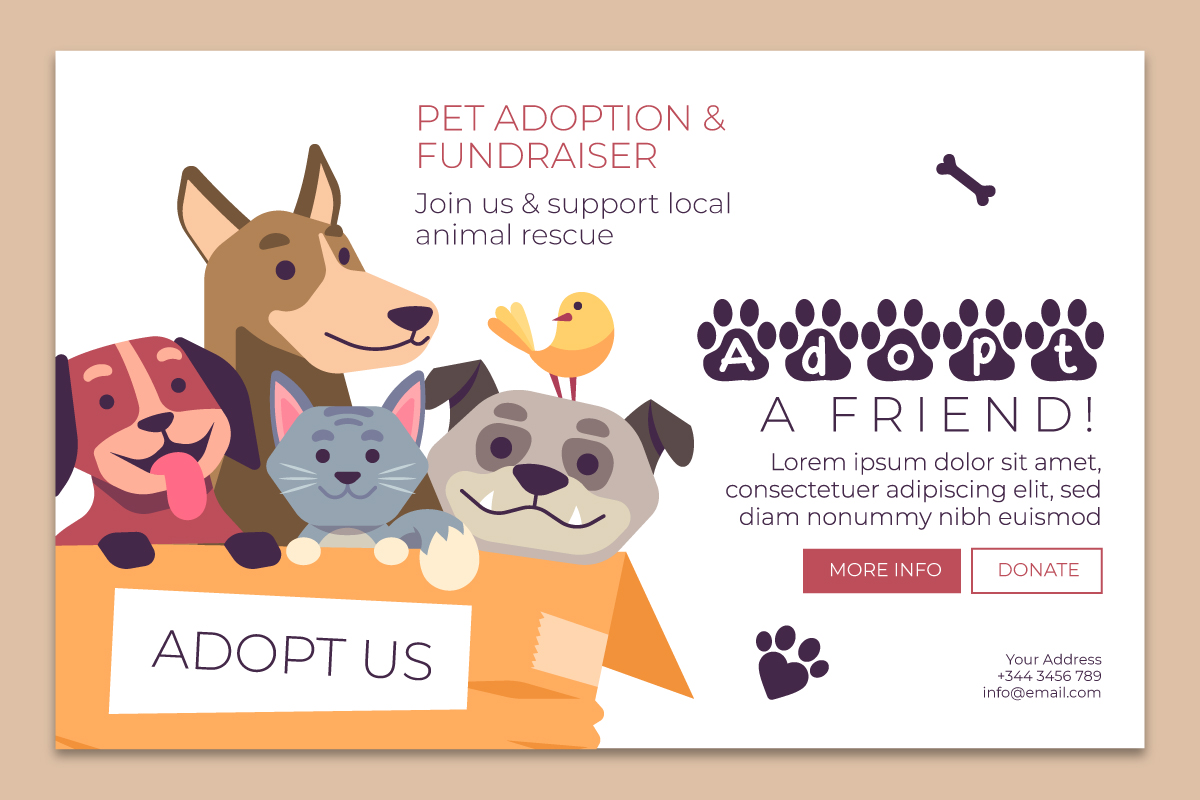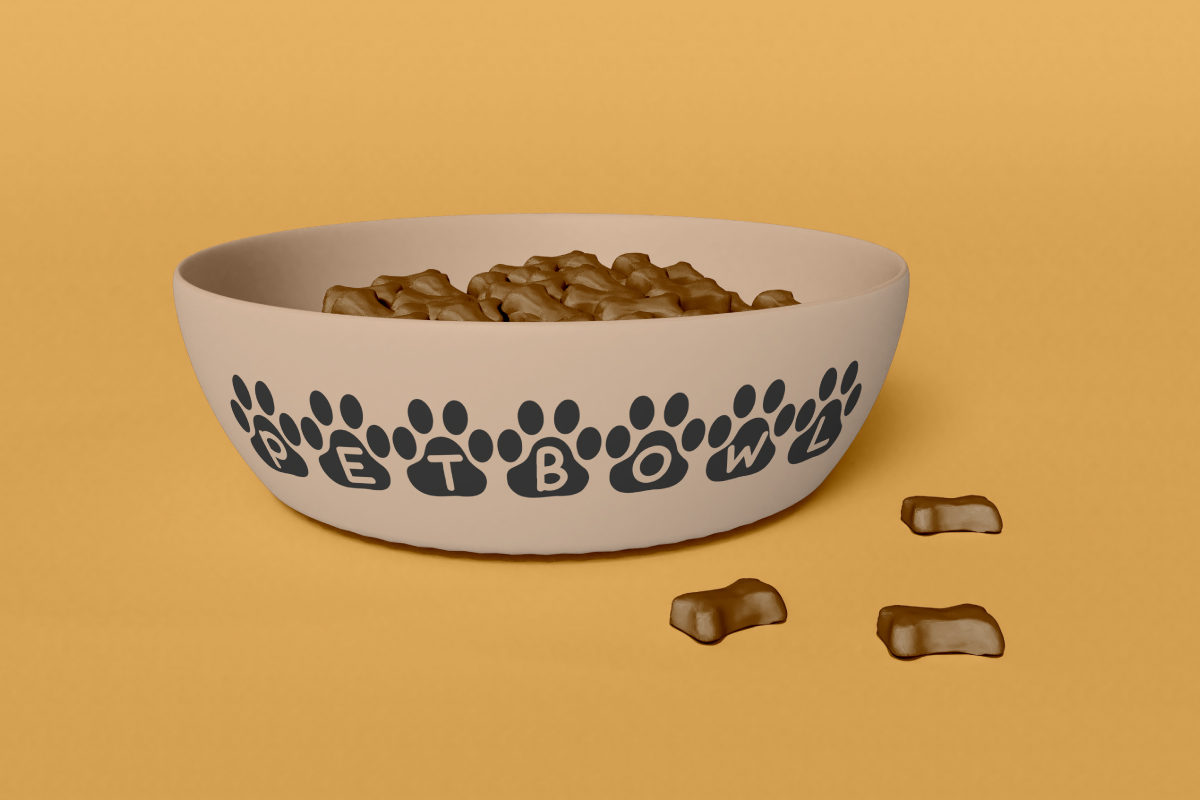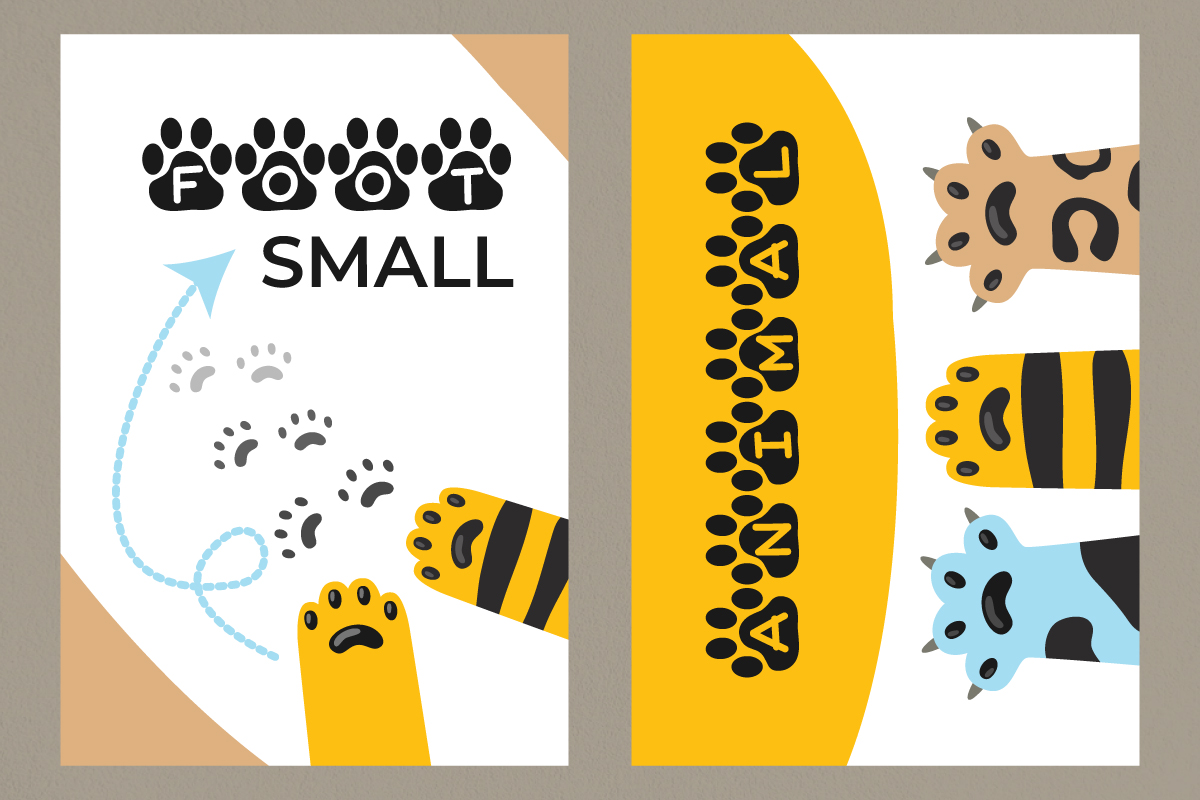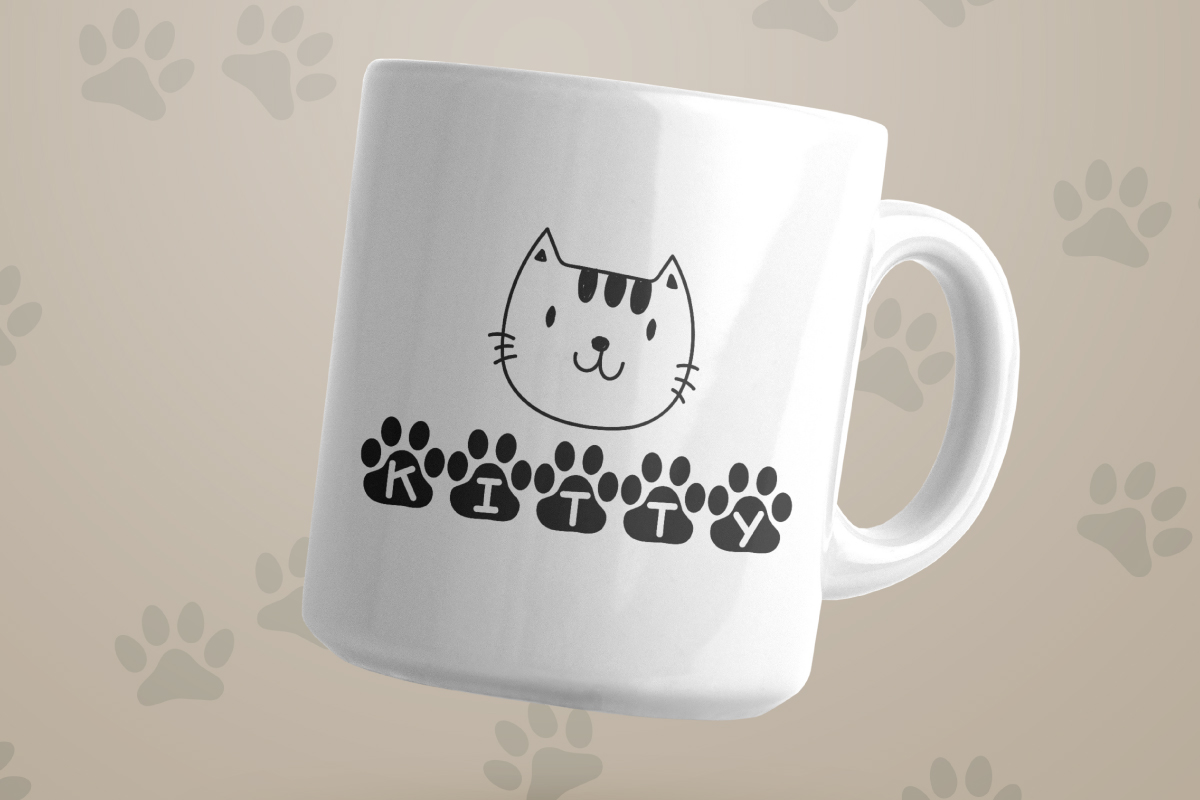
Kitty Paw Font
Kitty Paw Display Font
This is a fancy font with decorative animal theme style. The font will be awesome for advertising, brands, packaging, etc. Kitty Paw Font will suit many industries and categories related to entertainment, animation or movie, kids, pet shop, etc. It will work well for books, homewares , packaging, toys etc